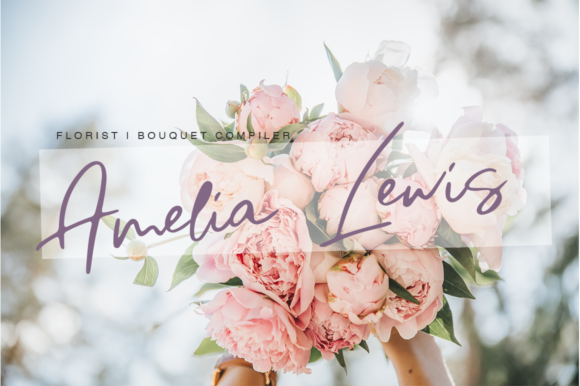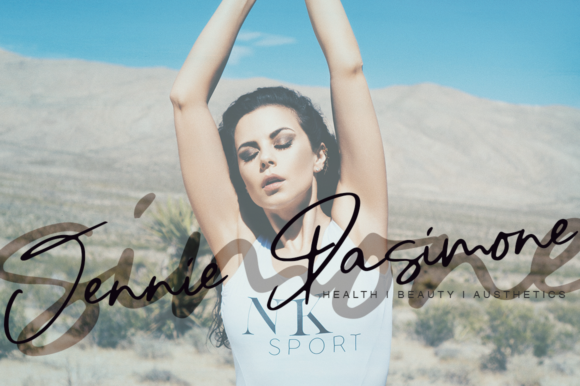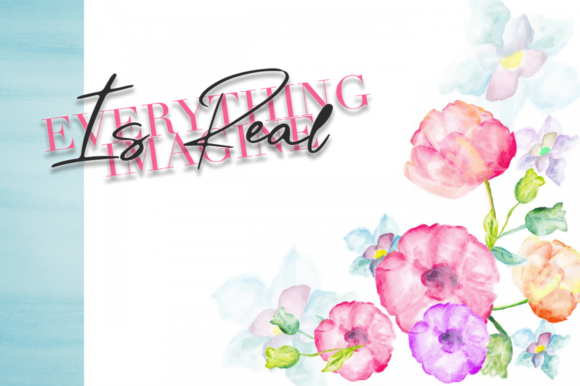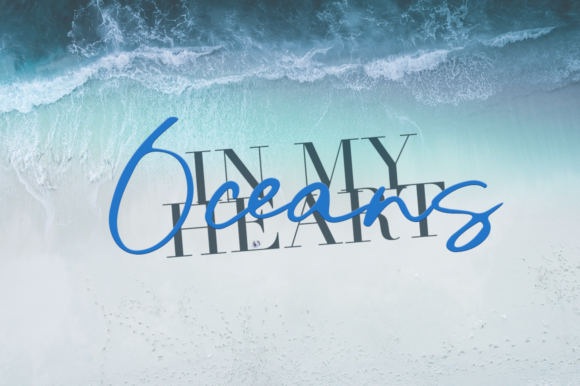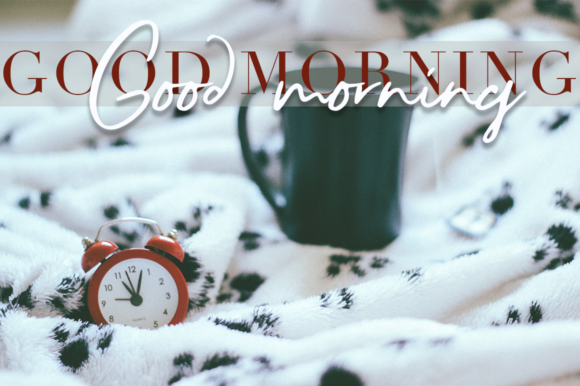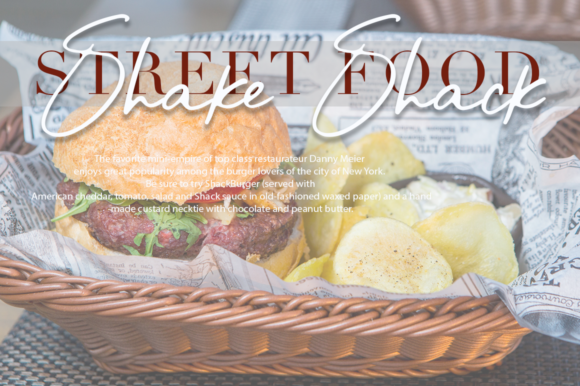
Fabinache Font
About Fabinache Font
Fabinache is a handwritten script font that has been attentively written with gentle curves to produce a font that’s completely distinctive and original. Perfect for adding a elegant and unique touch to your lettering projects and branding.